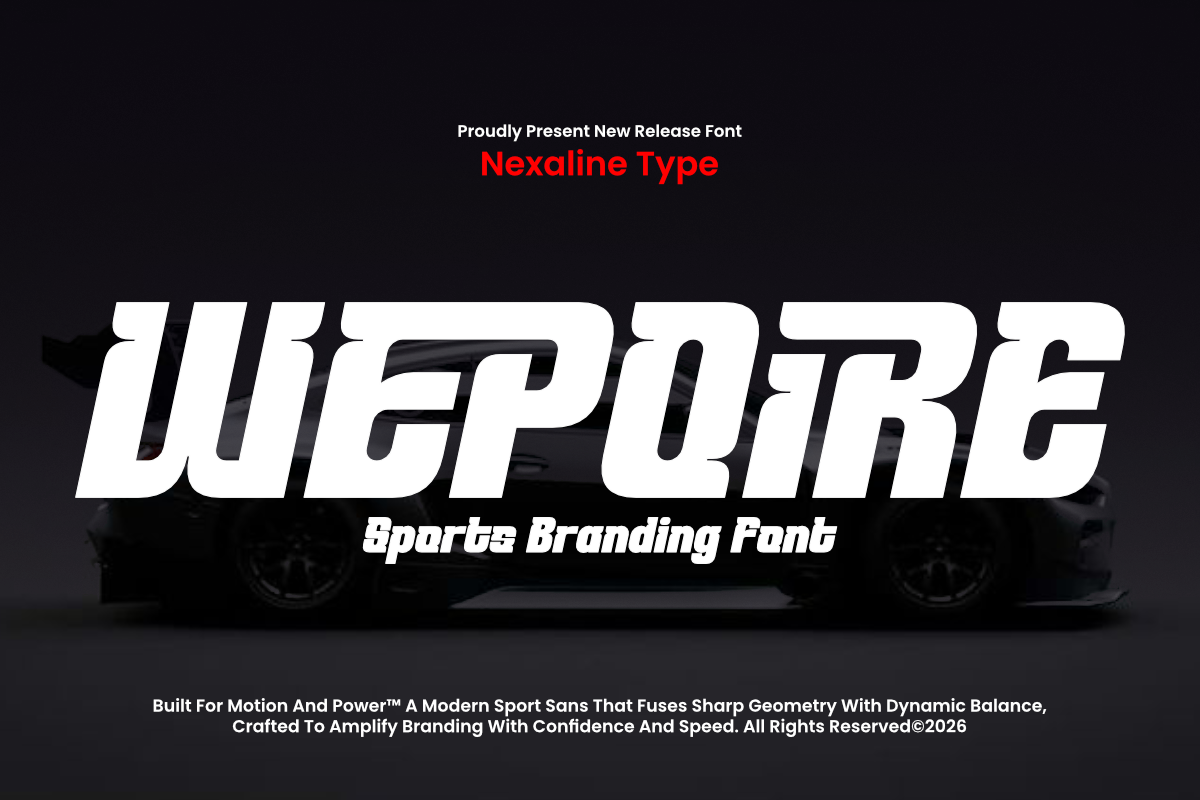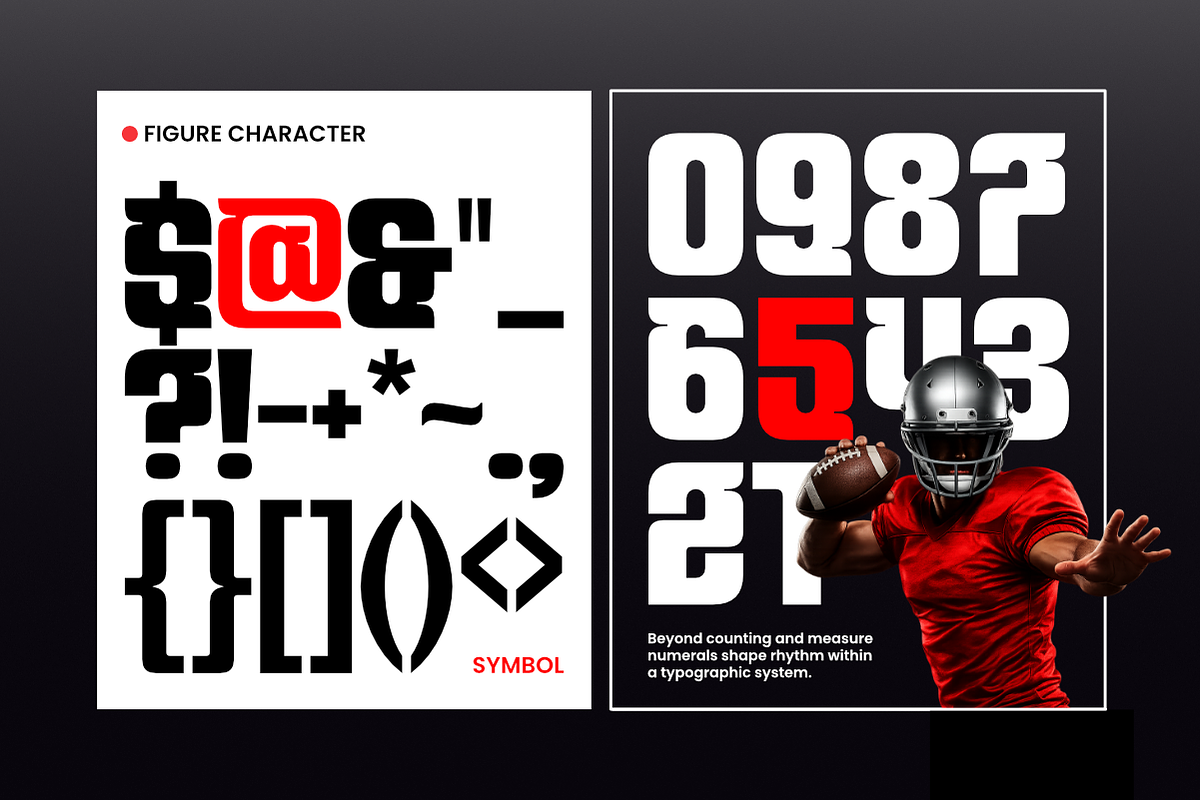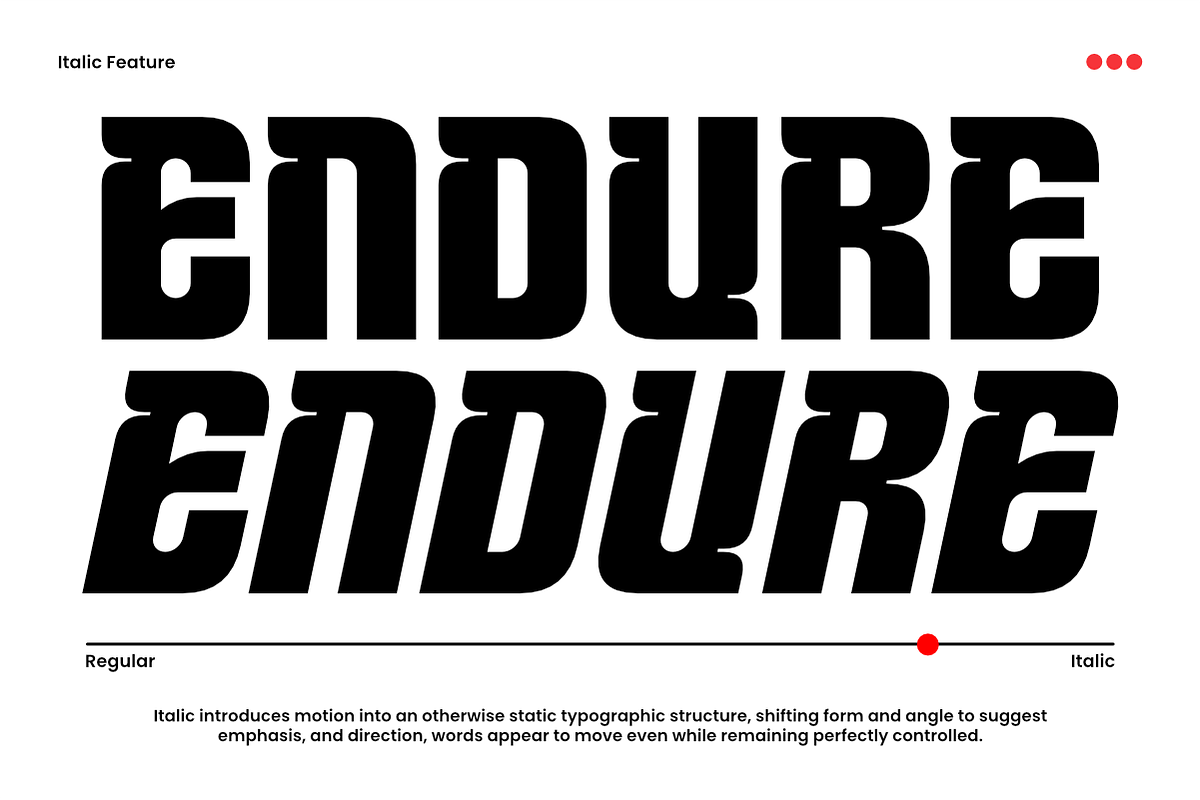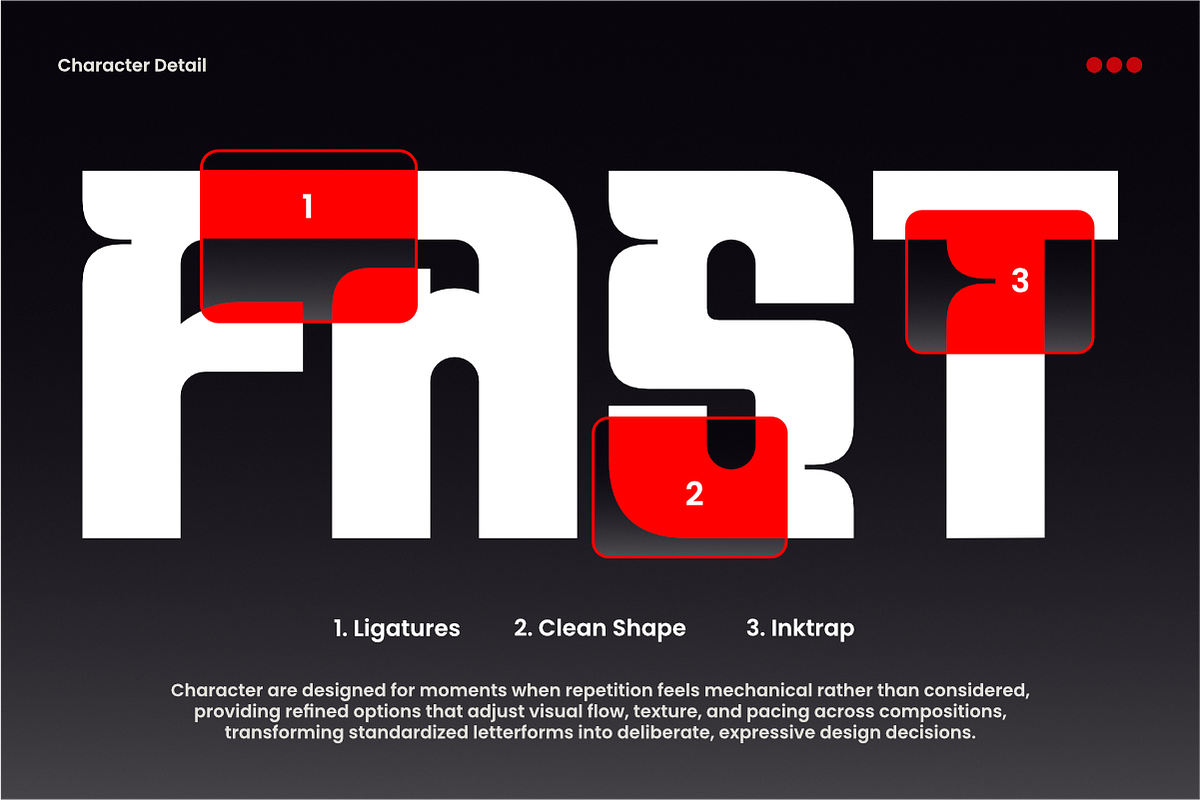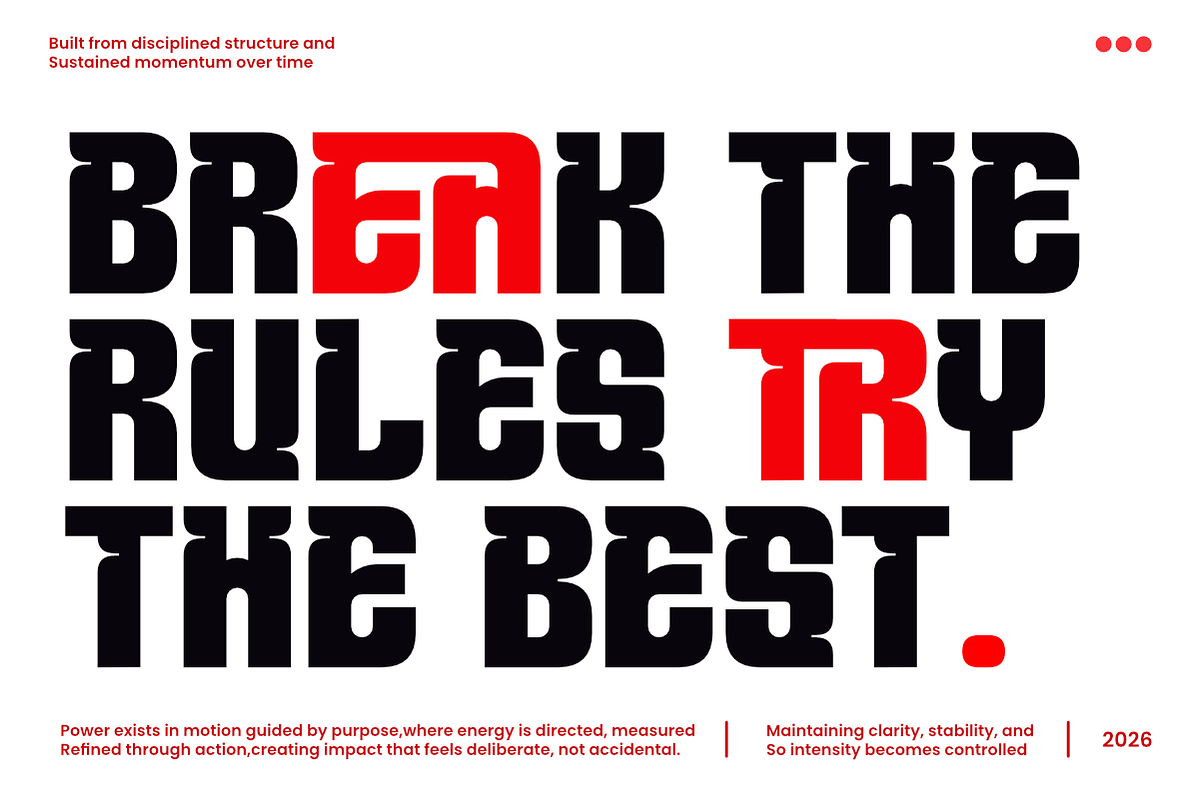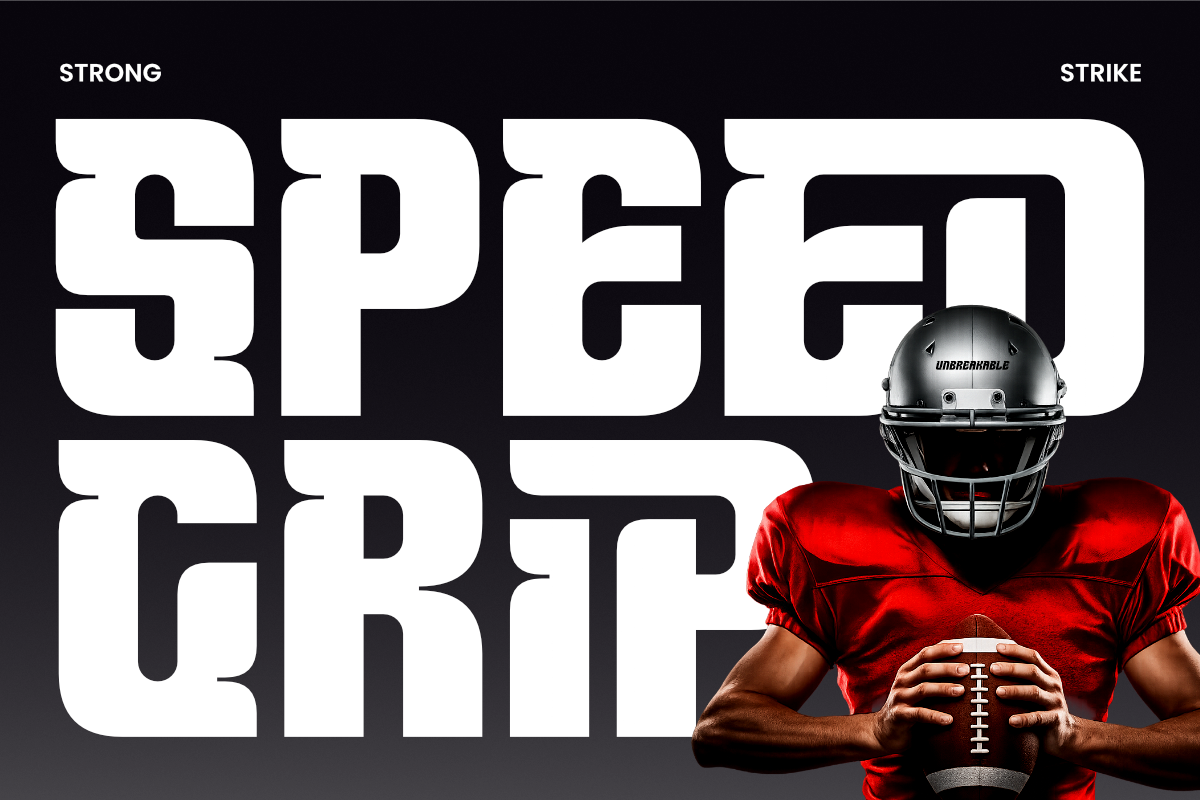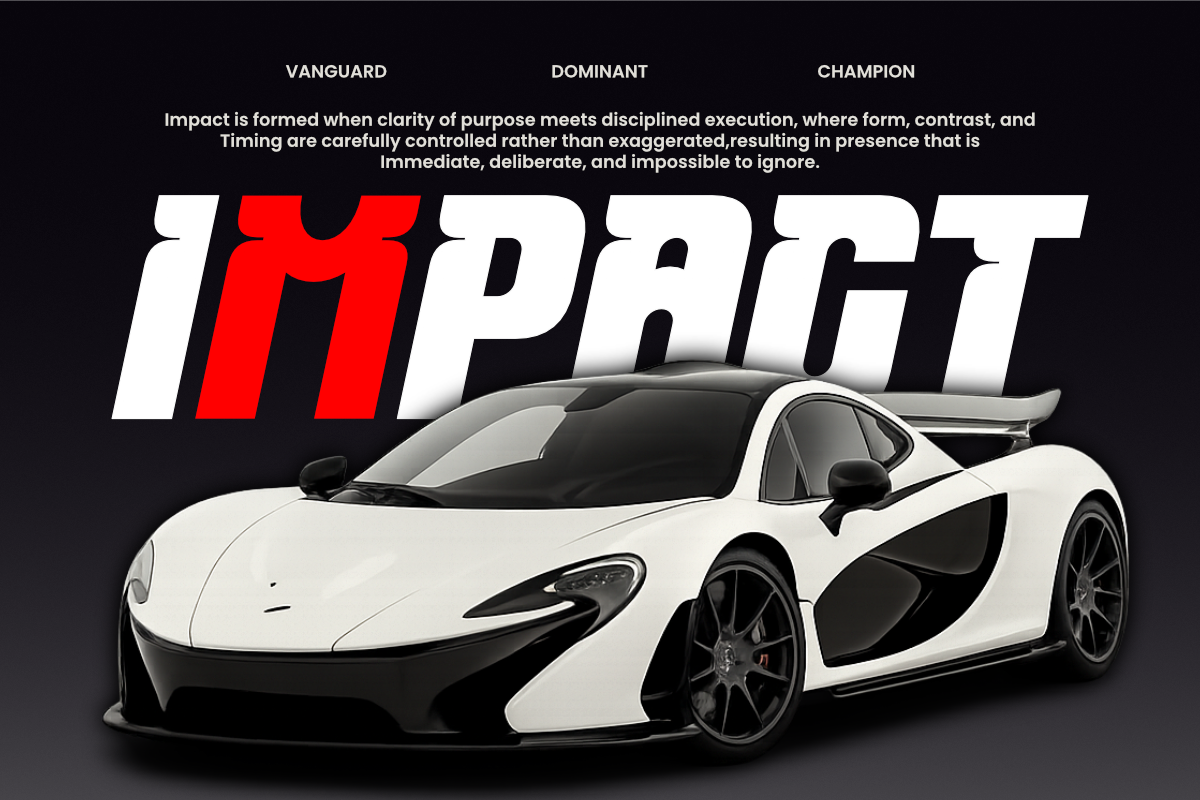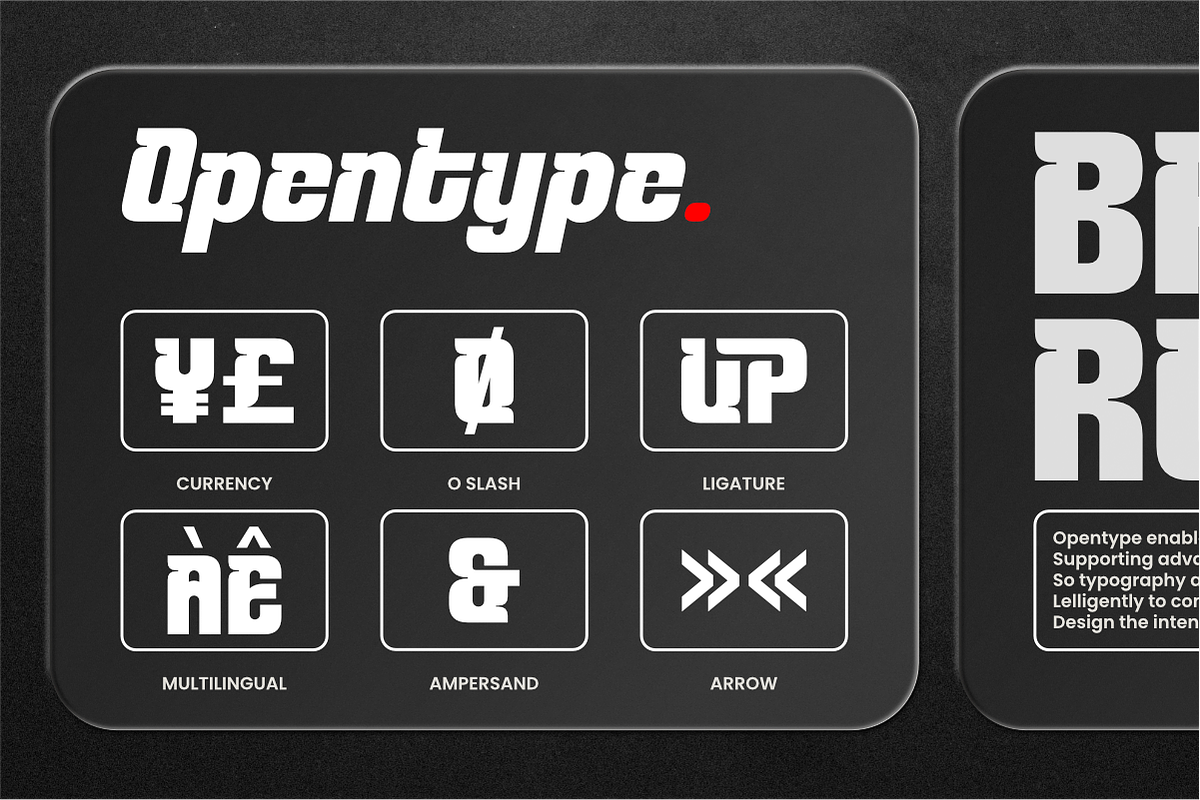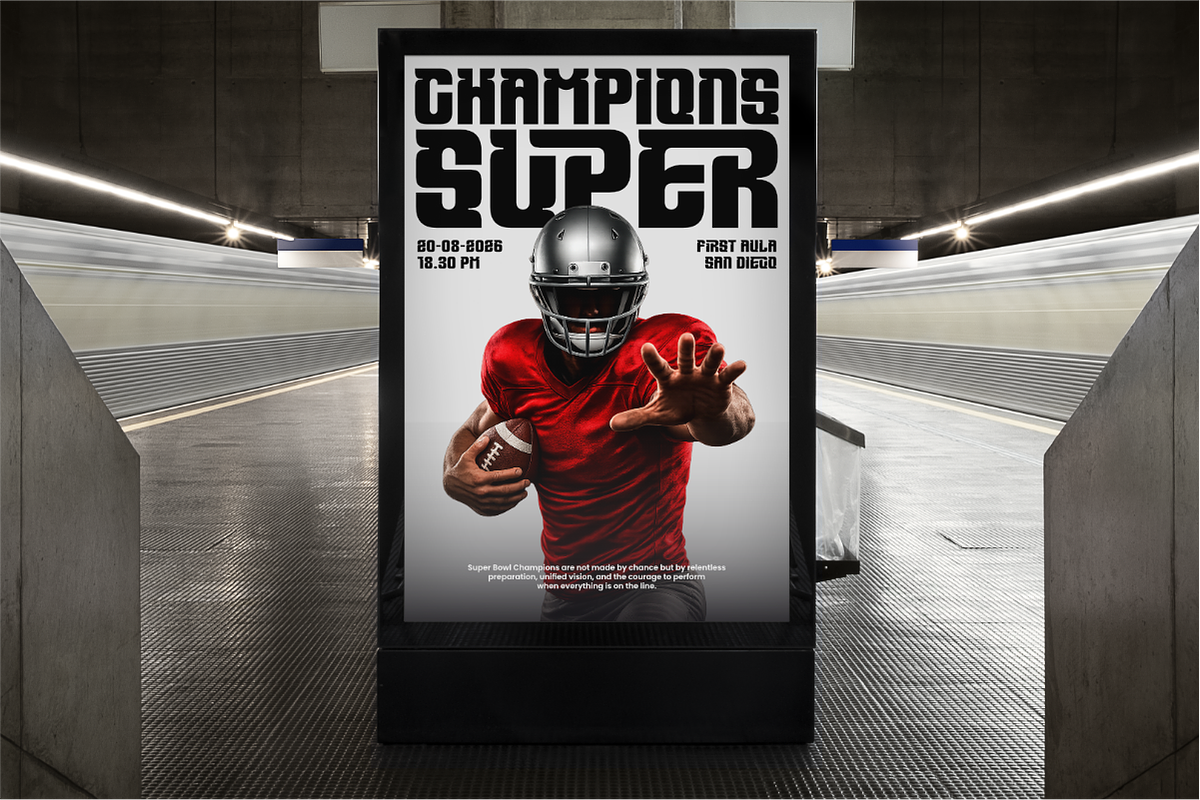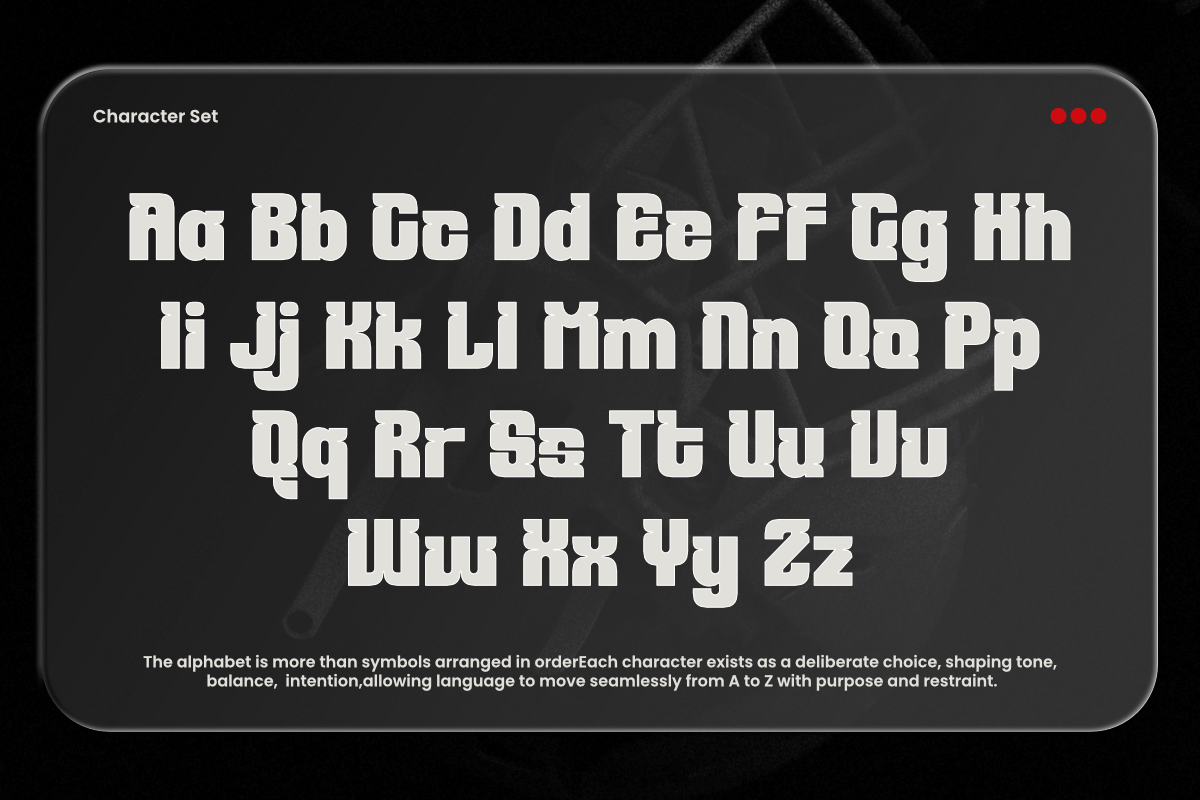
Wepoire - Sport Branding Font
Wepoire — Sports Branding Font is a bold display typeface designed for powerful visual identity and competitive branding.
With sharp letterforms, heavy stroke weight, and a strong forward-driven construction, Wepoire delivers an aggressive and energetic typographic voice that stands out in high-impact design environments.
Designed to emphasize strength, speed, and visual dominance, this typeface balances bold structure with clear readability, making it suitable for branding-focused applications that require confidence and performance-driven aesthetics.
Balanced proportions and decisive detailing make Wepoire adaptable while maintaining a distinctive sports-oriented character. Whether used for team logos, esports branding, event headlines, or apparel graphics, this typeface adds intensity and modern competitiveness to contemporary design projects.